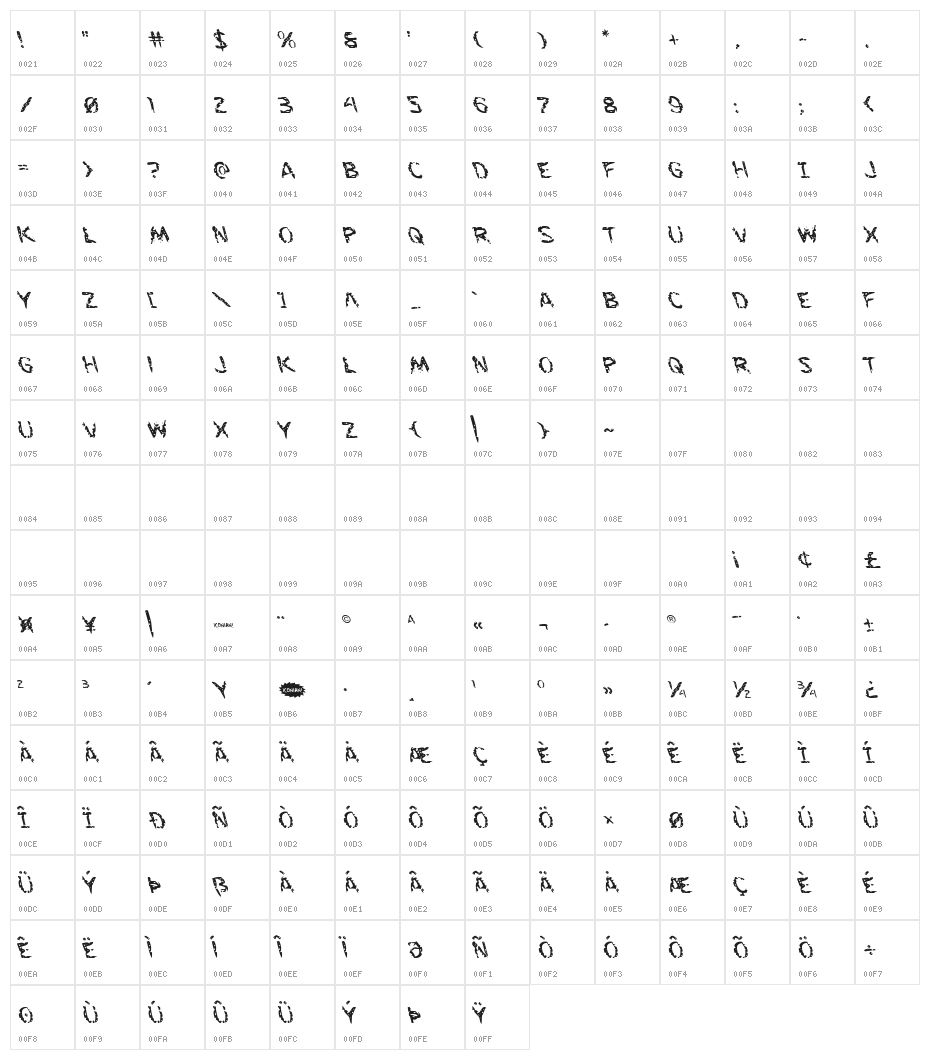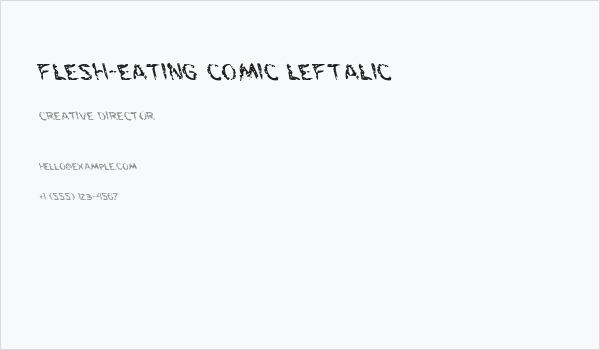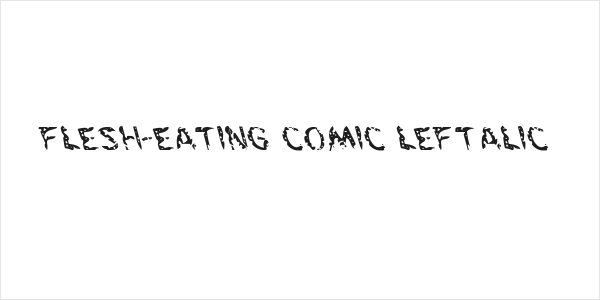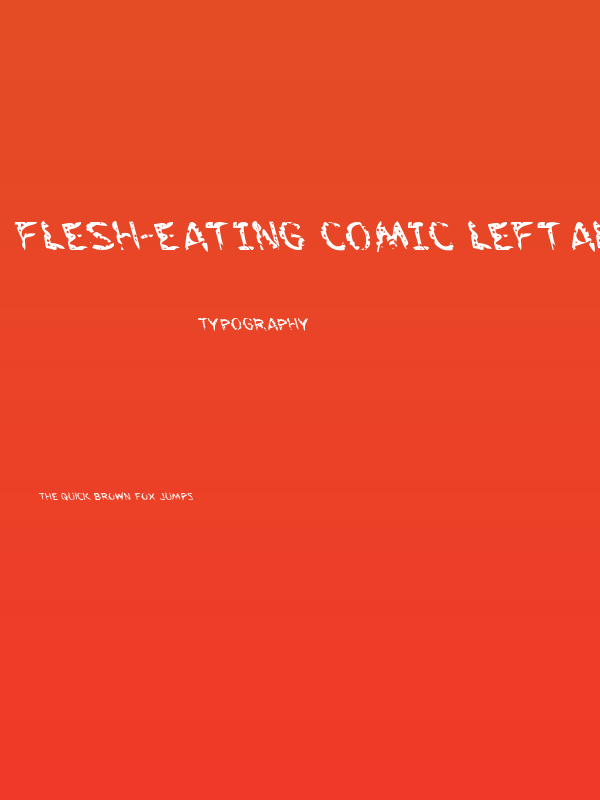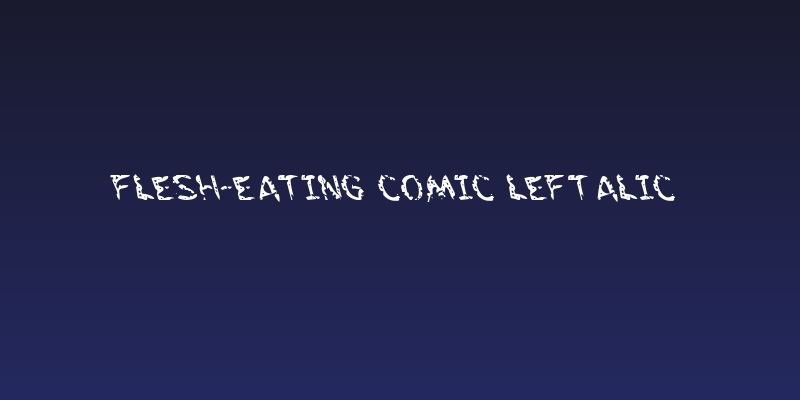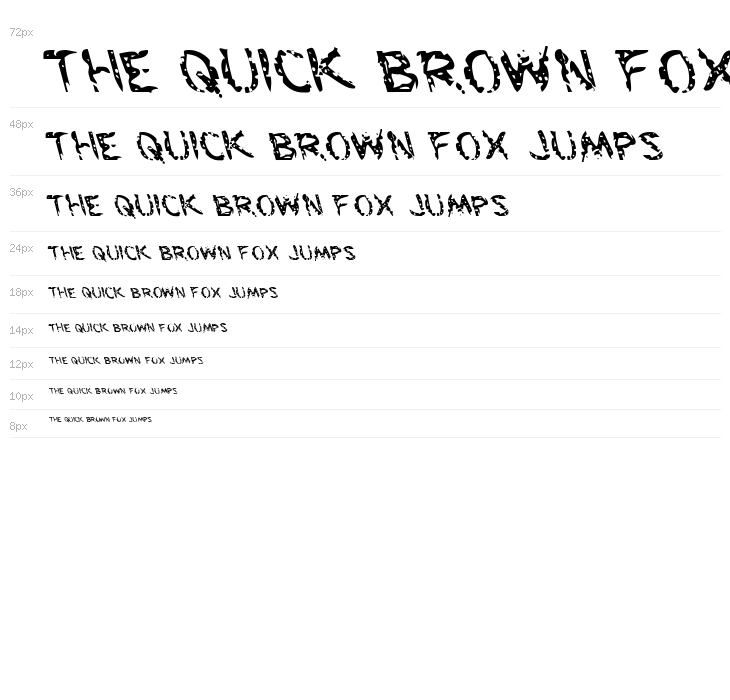
Flesh-Eating Comic Leftalic Font
Flesh-Eating Comic Leftalic Description
This font features a bold and distressed style, giving it a rugged and edgy appearance. The characters are designed with irregular, jagged edges that create a sense of decay or erosion, reminiscent of a horror or comic theme. The uppercase and lowercase letters maintain a consistent style, with each character appearing as if it has been partially eaten away or corroded. The numbers and special characters follow the same design approach, ensuring a cohesive look across all glyphs. This font's unique aesthetic makes it ideal for projects that require a dramatic and eye-catching typeface.
| Proposed Projects | Ideal for horror-themed posters, comic book titles, Halloween event flyers, or any project needing a dramatic, edgy typeface. |